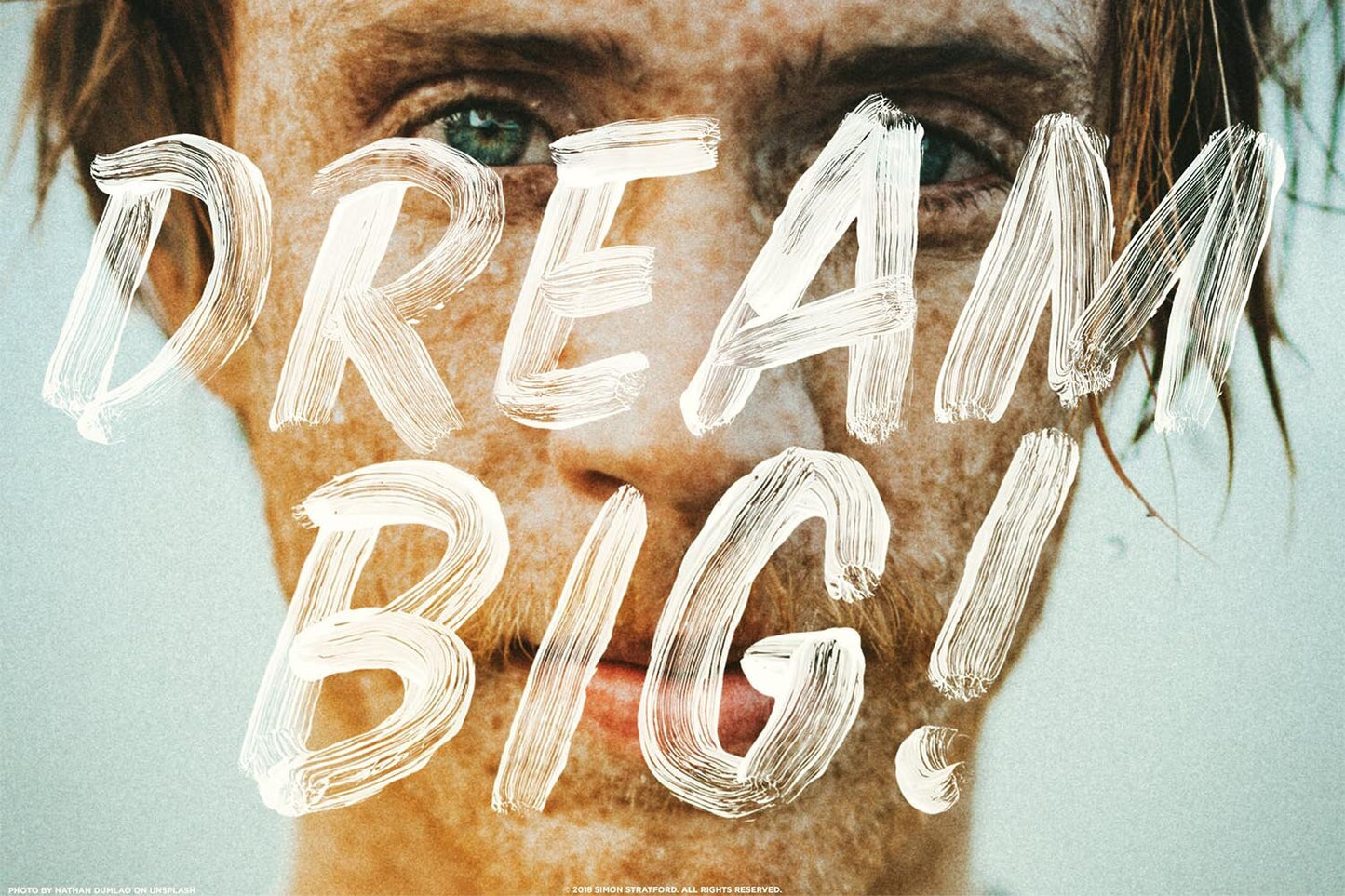
Most fonts imitate paint. Fierce Font is paint.
Every character began with acrylic applied to transparent film by hand. The marks were photographed, brought into Photoshop and converted into a full-colour OpenType SVG display typeface.
The scratches are real.
The dirt is real.
The attitude didn’t need adding afterwards.
A hand-painted font that keeps the paint
Traditional fonts turn every letter into a clean vector shape. That is useful when you want perfect edges.
Fierce Font was made for everything that happens before perfection gets involved.
OpenType SVG technology allows each character to retain the subtle shades, transparency, grime and irregular edges found in the original acrylic artwork. Instead of reducing the painting to a flat black outline, the font preserves the detail that gives it energy.
It looks handmade because it is handmade.
There is a difference.
Why Fierce Font was painted on clear film
Painting the characters on transparent film meant I could keep the natural edges of every brush mark without bringing a paper background into the finished font.
I photographed the artwork rather than scanning it, capturing the variations in paint, pressure and texture. Each image was then cleaned up just enough to work as a typeface without removing the evidence of how it was made.
Clean enough to use.
Dirty enough to matter.
Full colour with built-in transparency
Fierce Font contains transparency within the glyphs, making it possible to place the letters over photographs, textures and coloured backgrounds.
In Photoshop, a colour overlay can be added to change the appearance of individual letters while retaining the original painted detail. This gives you more control without making you rebuild the effect from scratch.
Because sometimes a font is enough.
And sometimes you want to get your hands properly dirty.
Where to use Fierce Font
Fierce is a bold unicase display font containing uppercase letterforms. It works best when your design needs visible texture and immediate impact:
- Posters and campaign artwork
- Album covers and music graphics
- Editorial headlines
- Packaging and product labels
- Fashion and merchandise
- Social-media graphics
- Film and television titles
- Bold branding and advertising
This is not a font for disappearing quietly into the layout.
Fierce is the layout.
You get the painted character of the original.
Typography should leave a mark
There are plenty of perfectly polished fonts.
Fierce Font was created for designers who want to see the hand, the brush and the accident. It keeps the imperfections that ordinary font production usually removes.
Because the interesting part of paint is not where it behaves.
It is where it doesn’t.